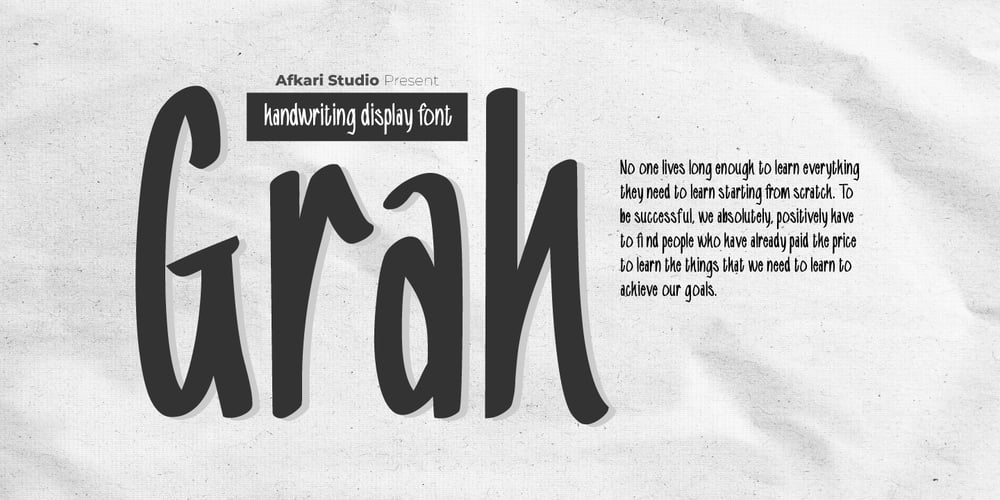
Grah
Grah font
Grah Font Family was designed by Musthafa Kamal Emje and published by Afkari Studio. Grah contains 1 styles and family package options. Grah ia a friendly display handwritten font with unique dan natural style It will add a joyful touch to each of your projects.Featured:- Uppercase and Lowercase- Number and punctuation- Multilanguage Support